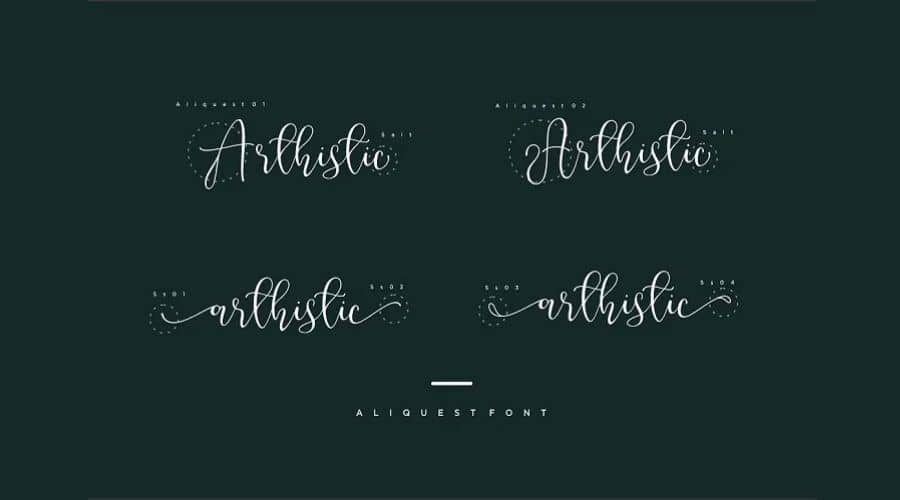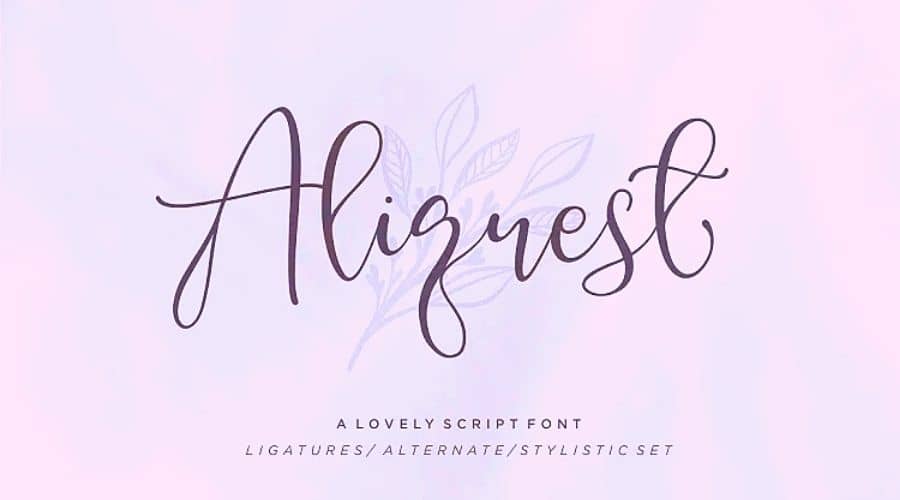
Aliquest Script Font
Introducing Aliquest Script Font! It is a unique calligraphy and script font. On January 20, 2019, sronstudio created and released the Font.
Aliquest Script Font is a good script font that is both beautiful and functional. A great asset to any professional designer’s font collection. This new sleek and modern script with a trendy handwritten and script style makes this Font look natural, classy, and natural, making it ideal for any fantastic projects requiring handwriting.
Aliquest Script Font is ideal for trademarks and advertising, invitations, literature, wedding designs, social media comments, commercials, product packaging, product designs, tag, photography, watermark, special events, and much more. The Font has already been used in many bakery shops, on their banners and menus both. The beautiful script font gives a different feel to any menus, whether it’s a bakery shop or other restaurants.
| Name | Aliquest Script Font |
| Style | Script, Calligraphy |
| Designer | sronstudio |